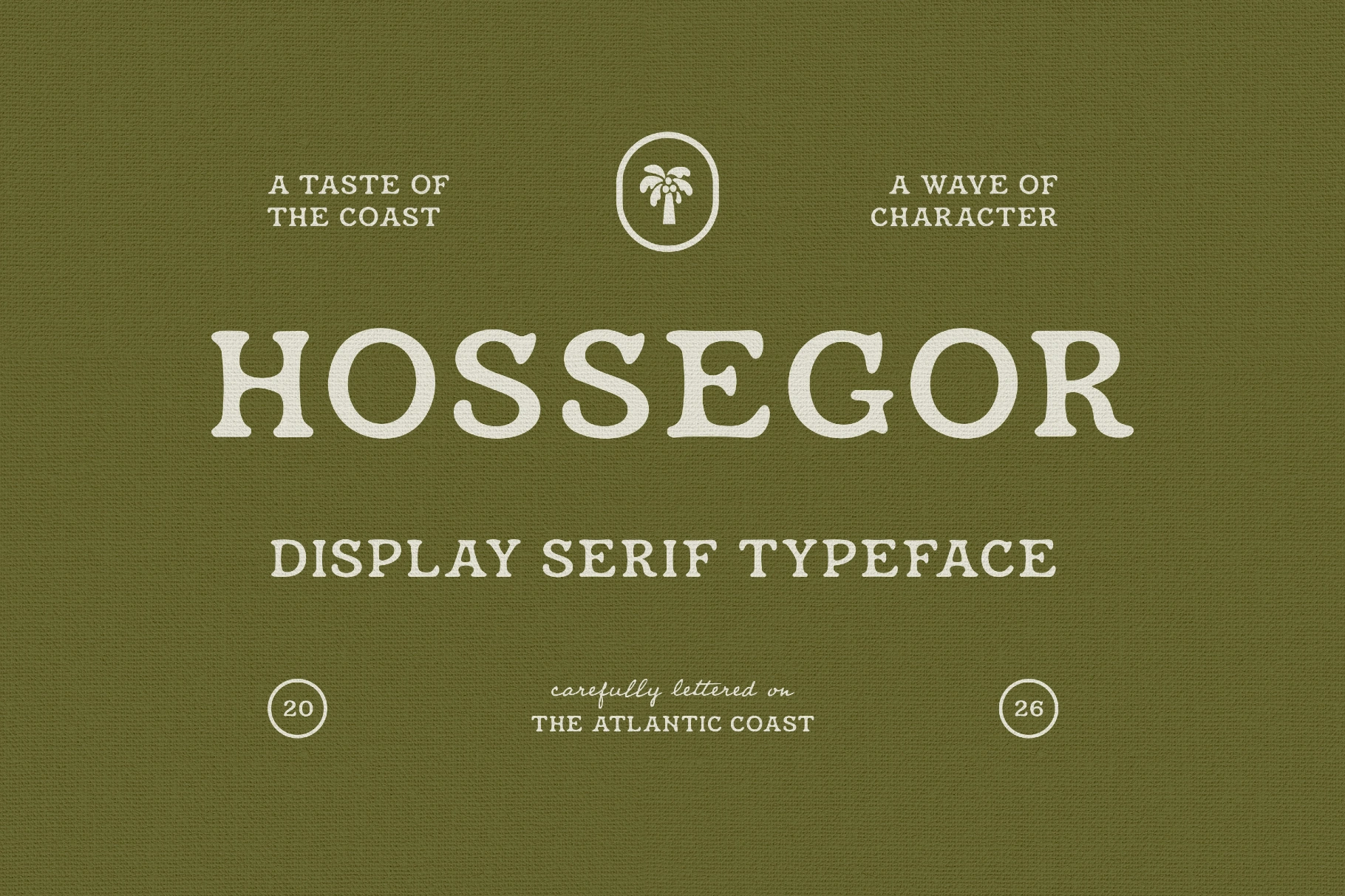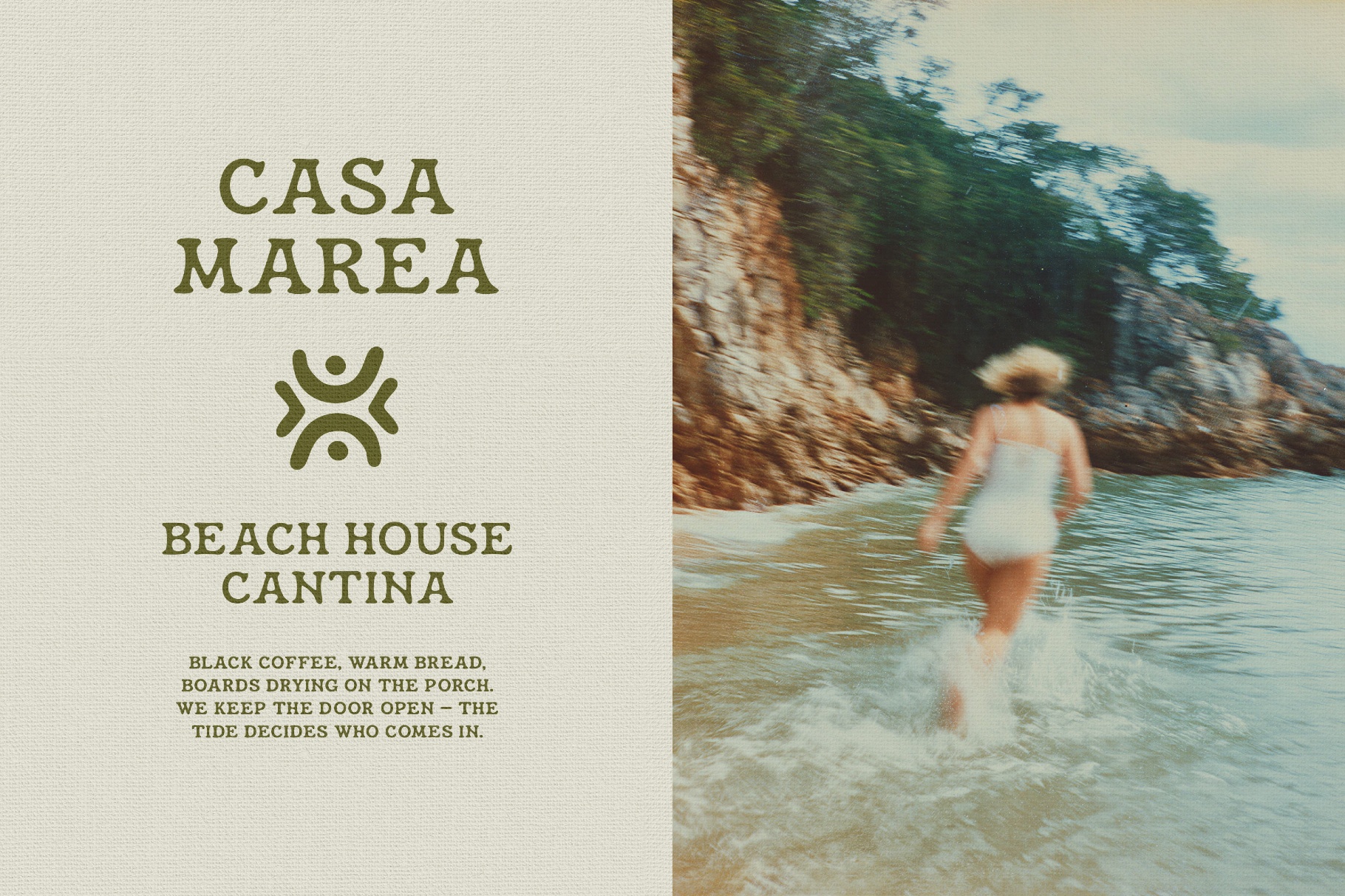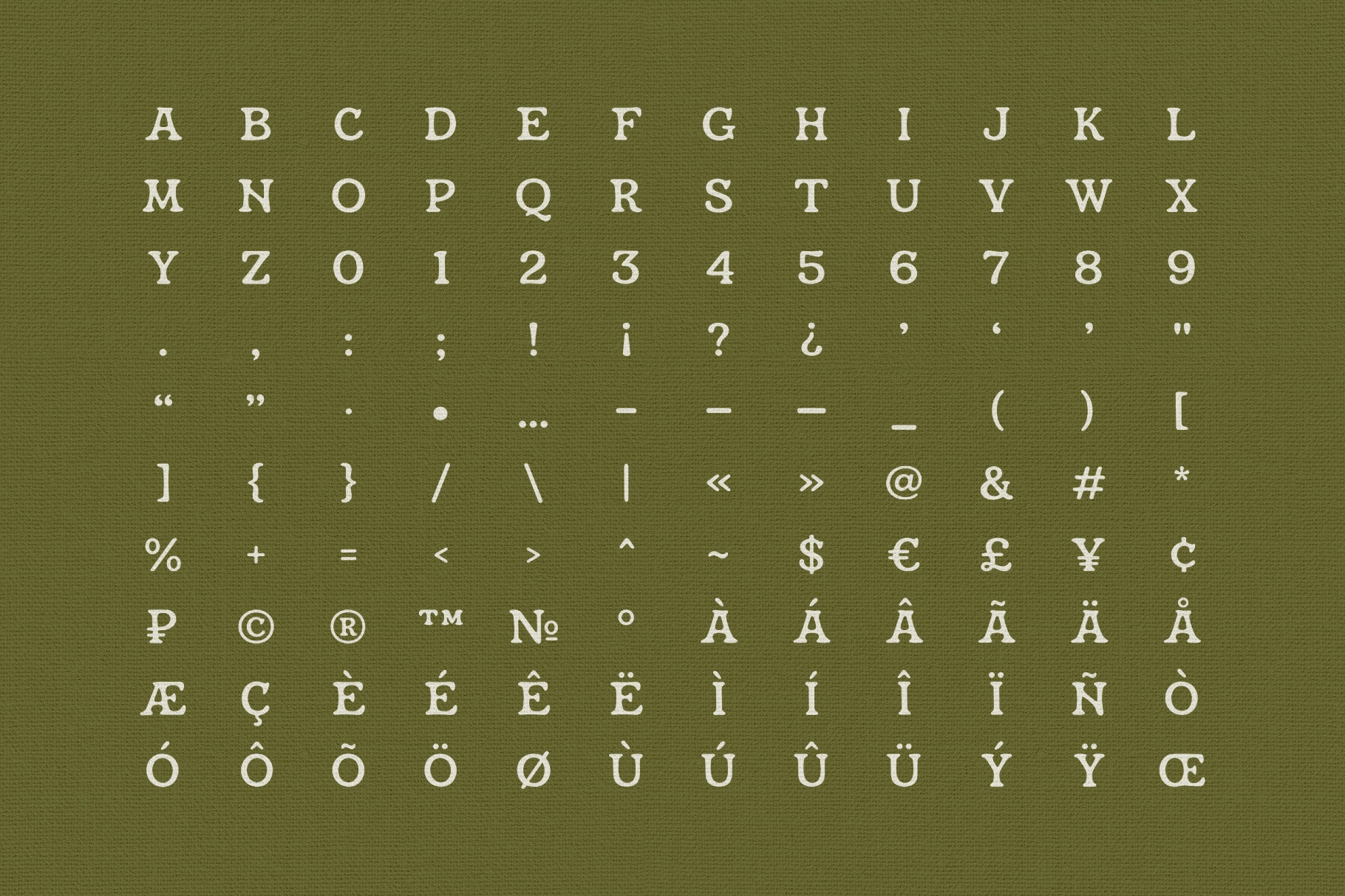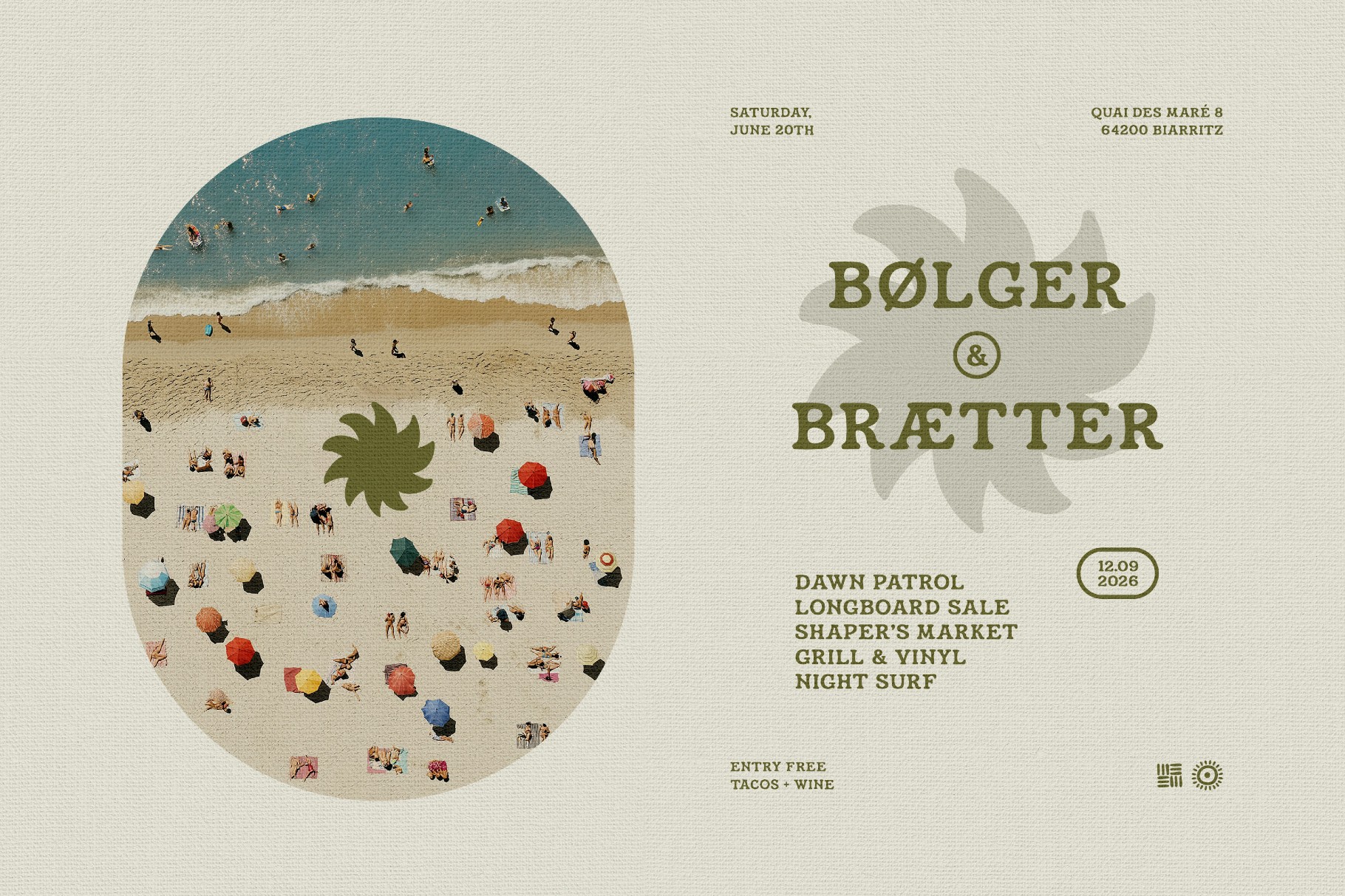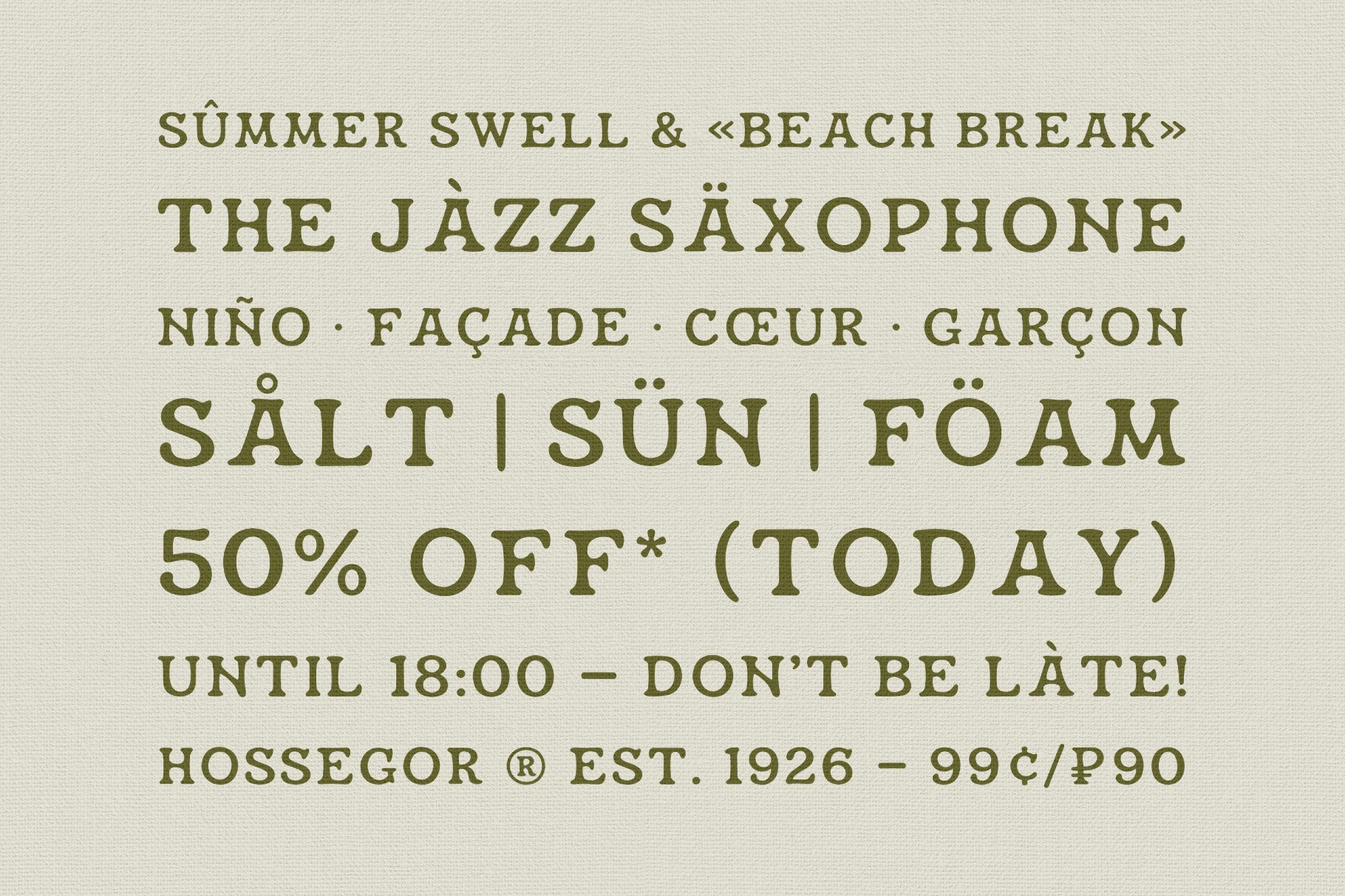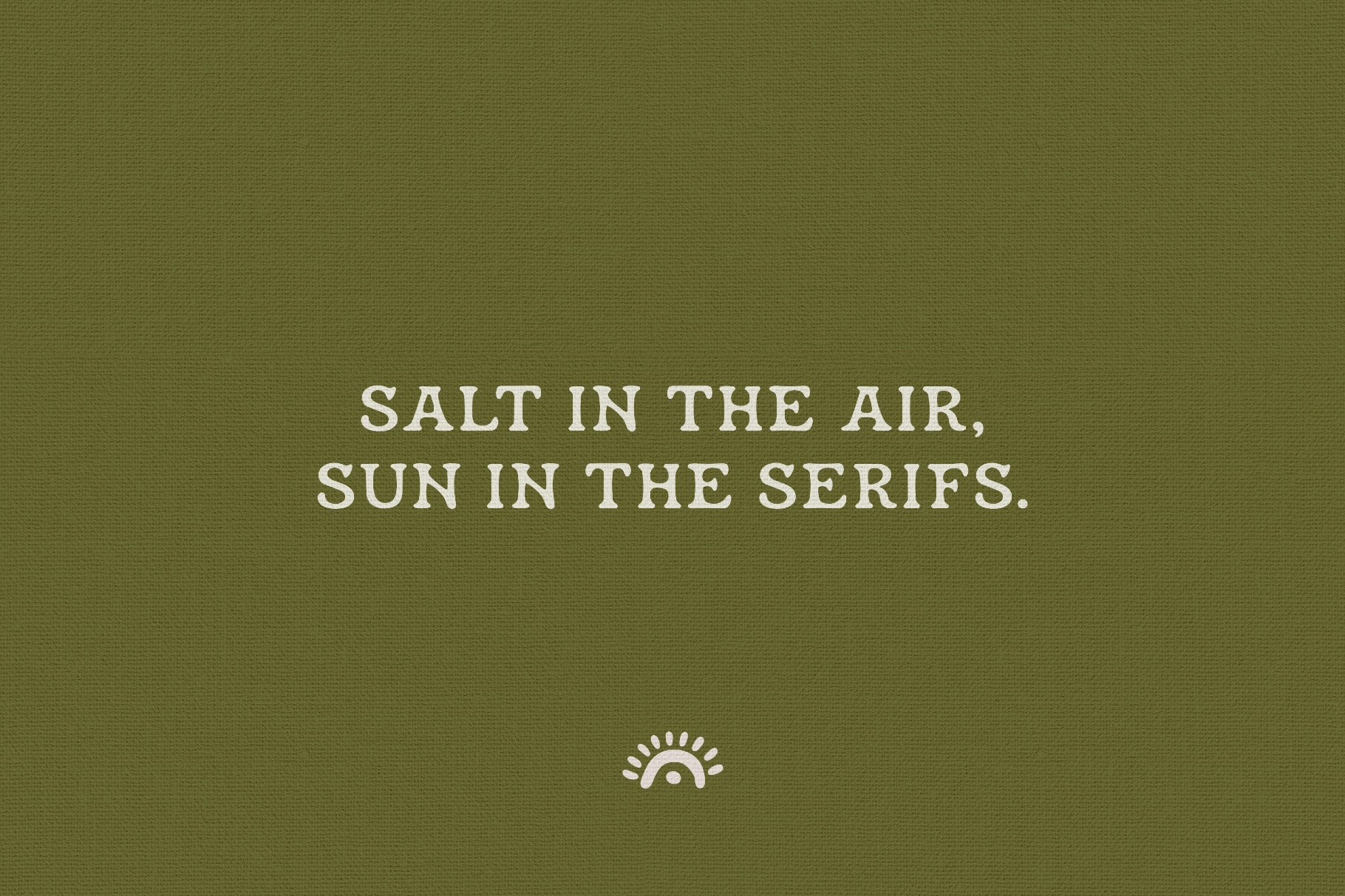
Hossegor - Retro Surf Serif Display
Hossegor takes its name from the surf town on France's Atlantic coast, and its letterforms come straight out of that 1970s seaside world: chunky slab serifs, rounded groovy bowls, and hand-cut edges with a sun-bleached, slightly irregular finish. It's an all-caps retro serif display font drawn to go loud on headlines and hold its warmth on labels, surf-shop signage, worn vinyl sleeves, and faded beach posters.
Its reach runs past English: the extended Latin set covers French, Spanish, Portuguese, Italian, German, Dutch, and the Scandinavian languages, with Ø, Æ, Å, Œ, Ñ, Ç, and full Western European diacritics on board.